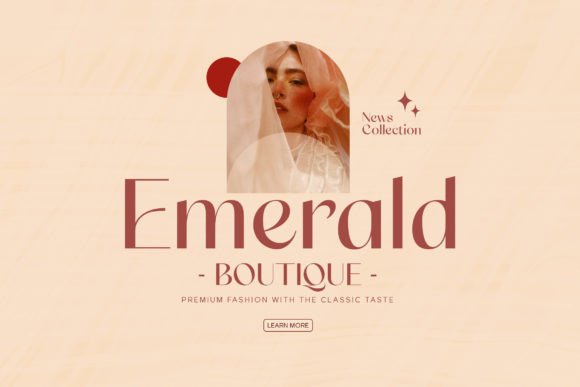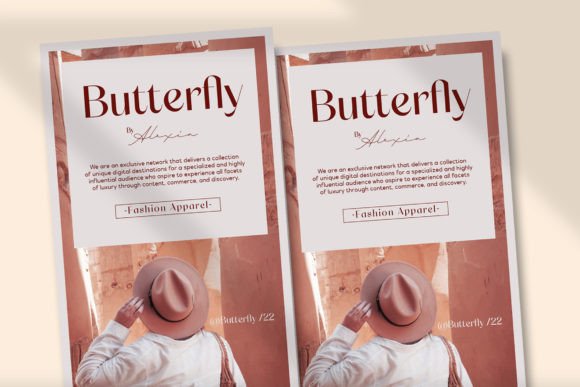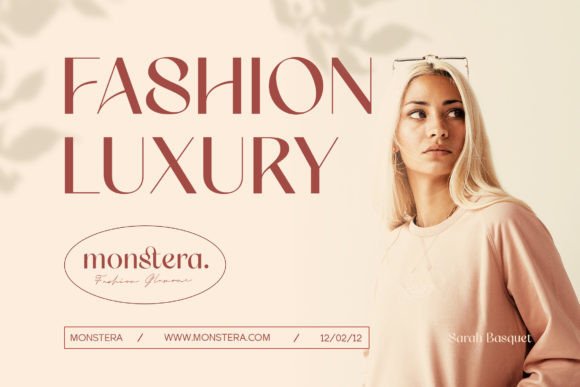
Introduction to Quinshy Font Font
Fonts play a crucial role in design, and the Quinshy Font font is a typeface that brings both character and versatility to any project. Whether you’re working on a branding project, a website, or a print design, the Quinshy Font font offers a unique style that can elevate your work.
Quinshy – Modern Beauty Elegant Aesthetic Sans Serif – Expressive Romantic Feminine Lovely Logo Branding Font Quinshy comes with some alternates and ligatures that you can combine to make a perfect typography design.
It is perfect for your upcoming projects such as luxury logo and branding, classy editorial design, woman’s magazines, cosmetic brands, fashion promotional, art gallery branding, museum, boutique branding, stationery design, blog design, modern advertising design, card invitation, art quote, home decor, book/cover title, special events, and any more .
The Quinshy Font font is more than just a typeface – it’s a design tool that helps you communicate your message with style and clarity. Its unique character set and versatile design make it suitable for a wide range of applications, from elegant invitations to bold headlines.
With its carefully crafted letterforms and balanced proportions, the Quinshy Font font ensures readability and visual appeal across all mediums.
The Quinshy Font font stands out with its unique design, exceptional readability, and versatility across various design applications.